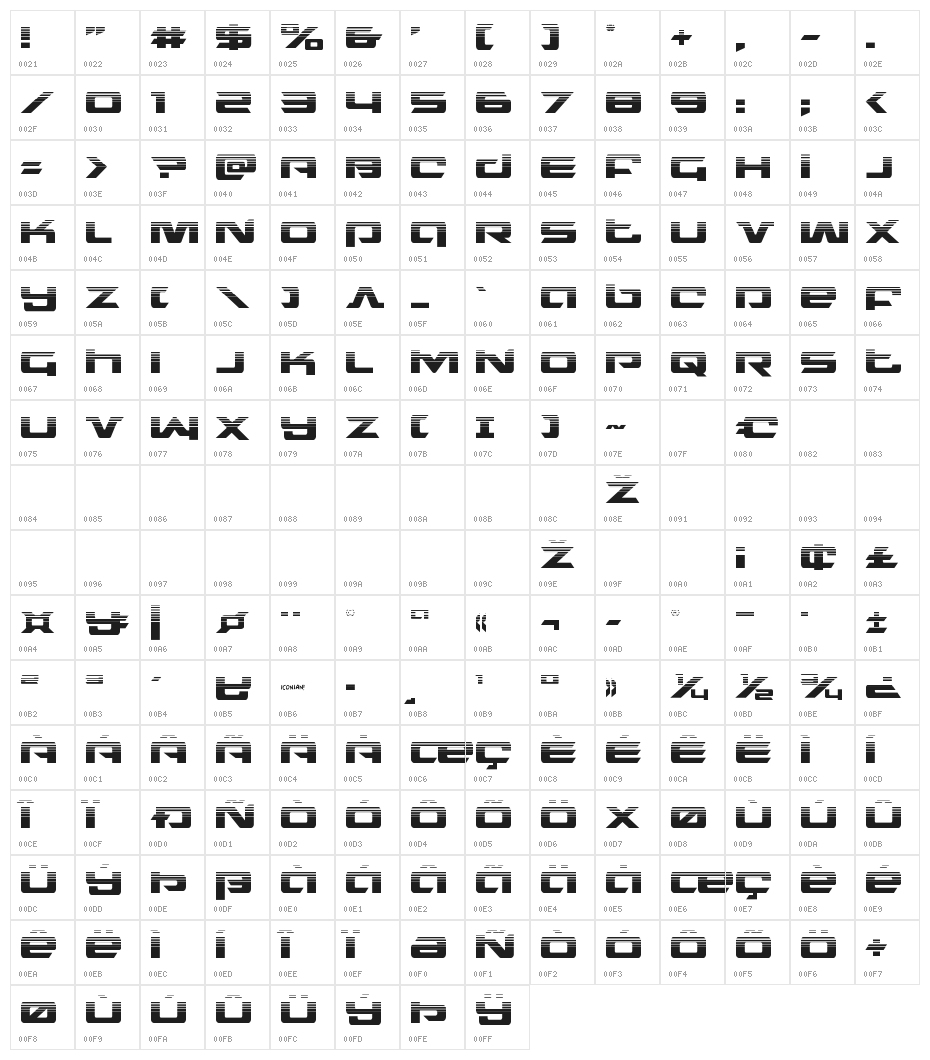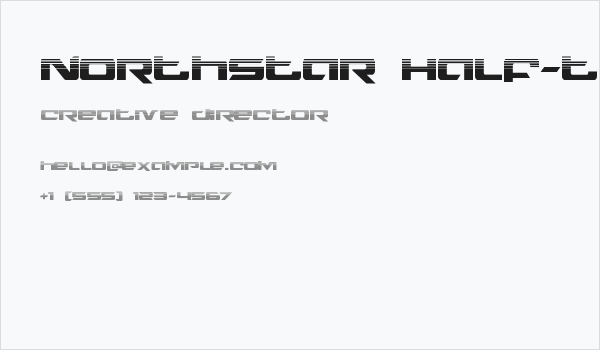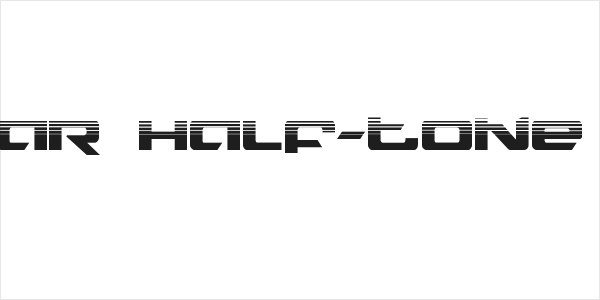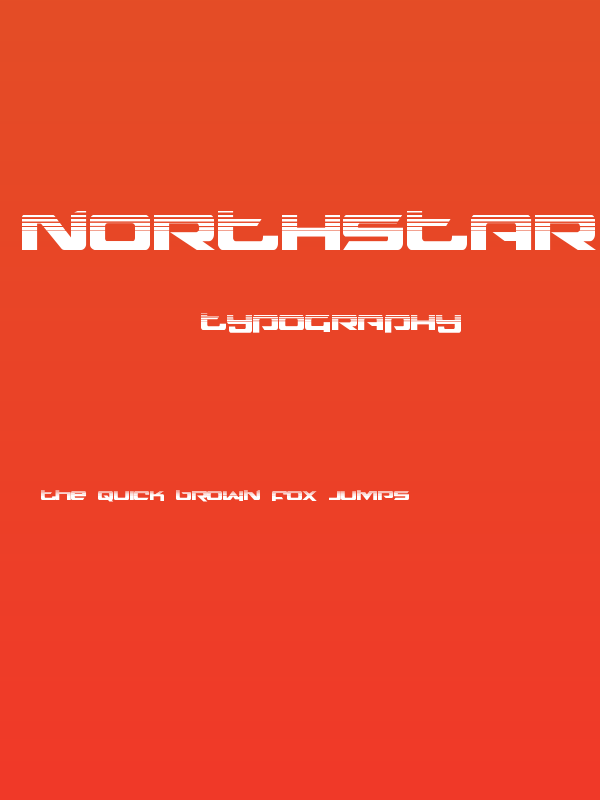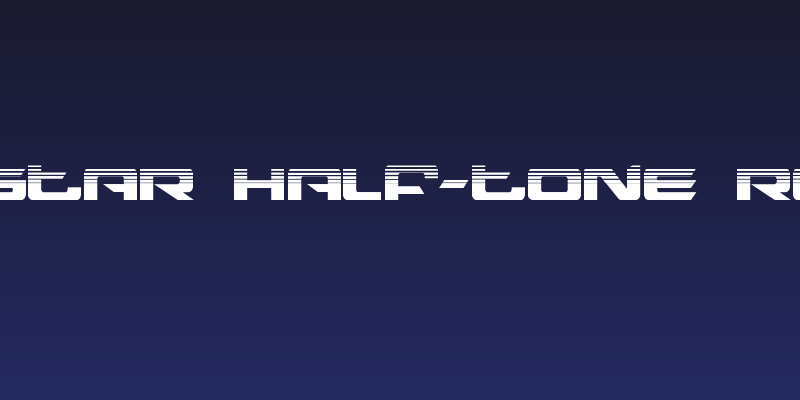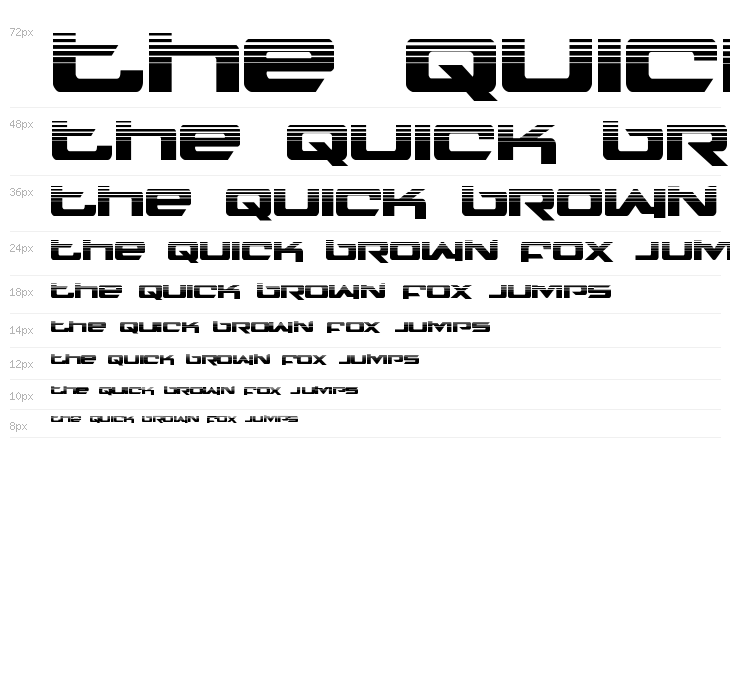
Northstar Half-Tone Regular Font
Northstar Half-Tone Regular Description
This font features a bold, futuristic design with a half-tone effect that creates a sense of movement and depth. The characters are constructed with horizontal lines that give a digital, tech-inspired appearance. The uppercase and lowercase letters maintain a consistent style, with sharp angles and geometric shapes. The numbers and special characters follow the same design principles, ensuring uniformity across all glyphs. This font is ideal for projects that require a modern and edgy look, such as technology branding, sci-fi themes, or digital art.
| Proposed Projects | Ideal for technology branding, sci-fi themes, digital art, and modern advertising. |